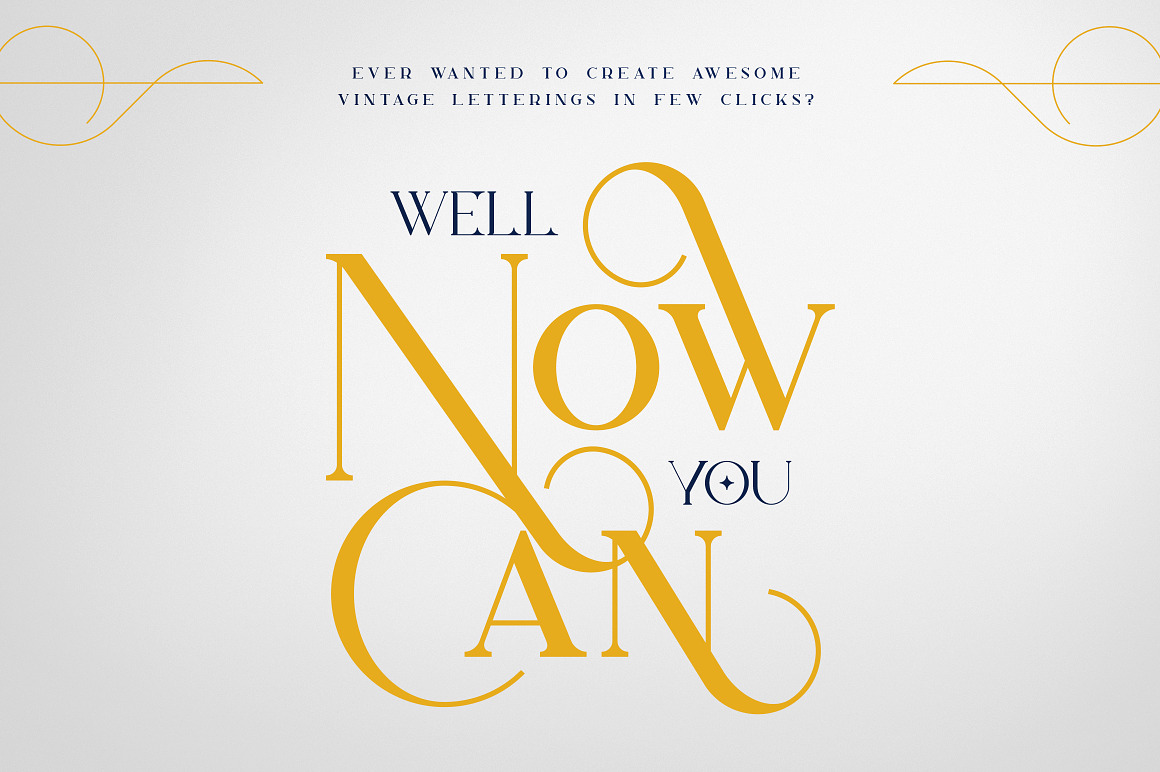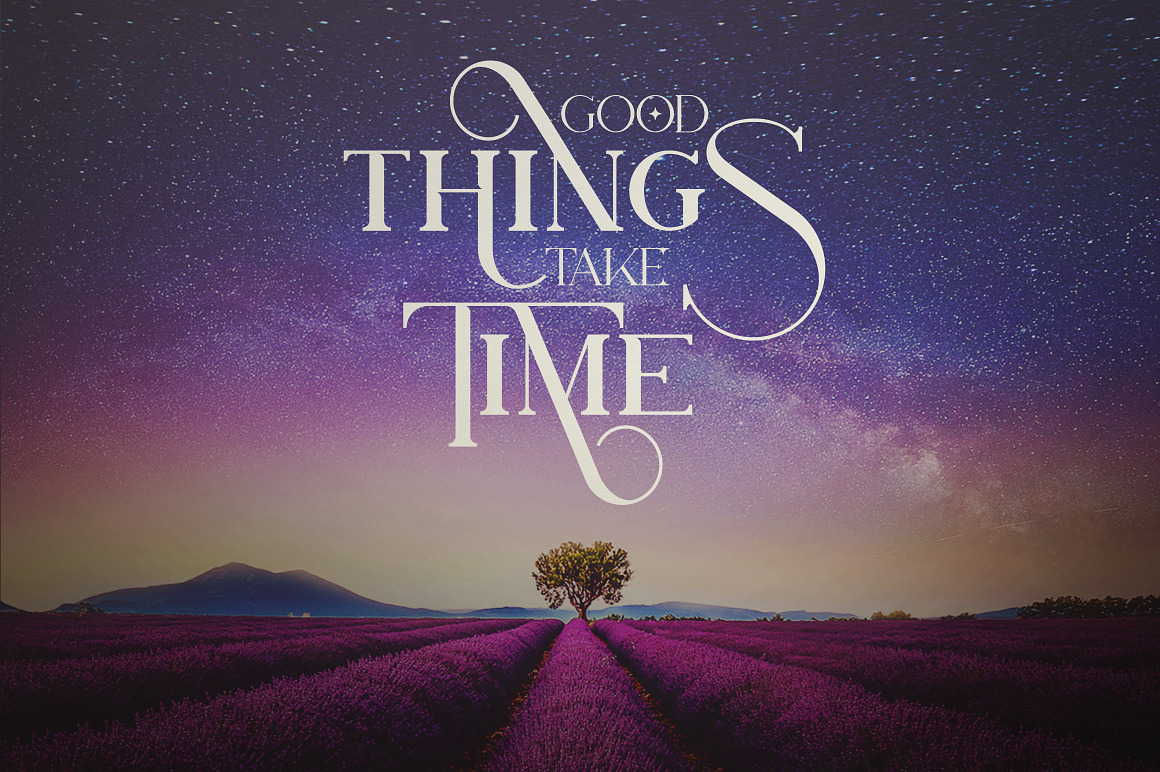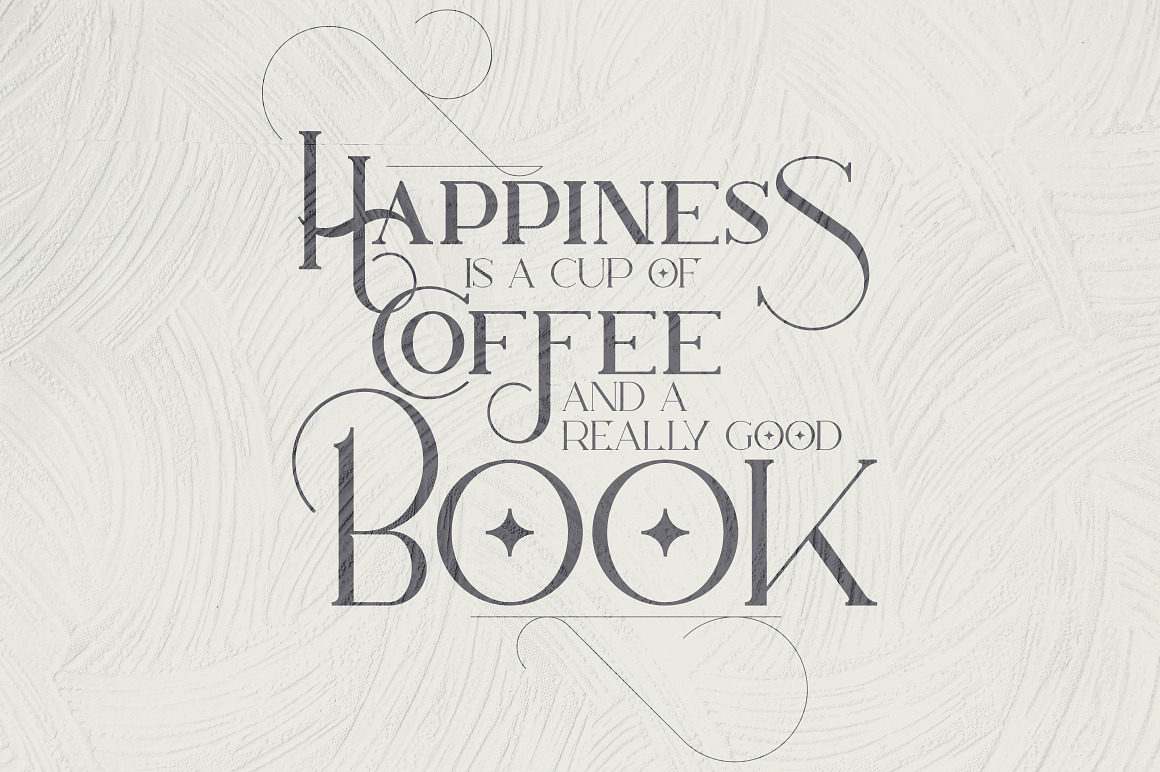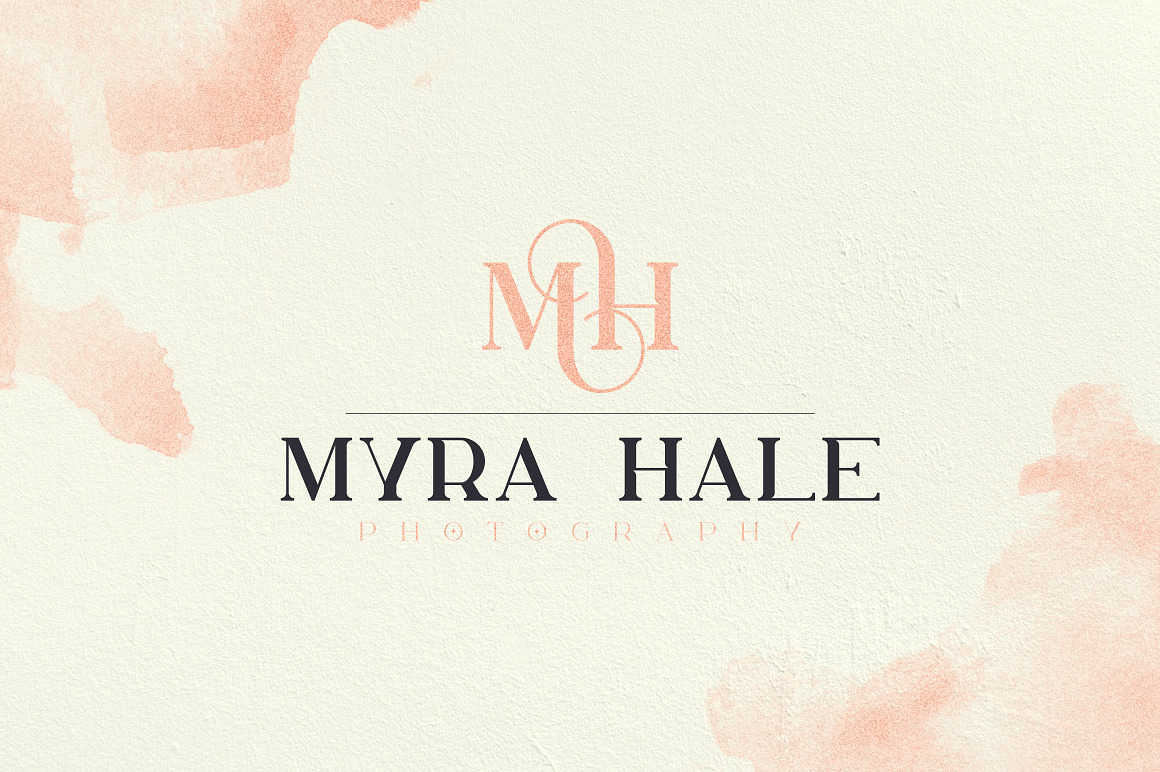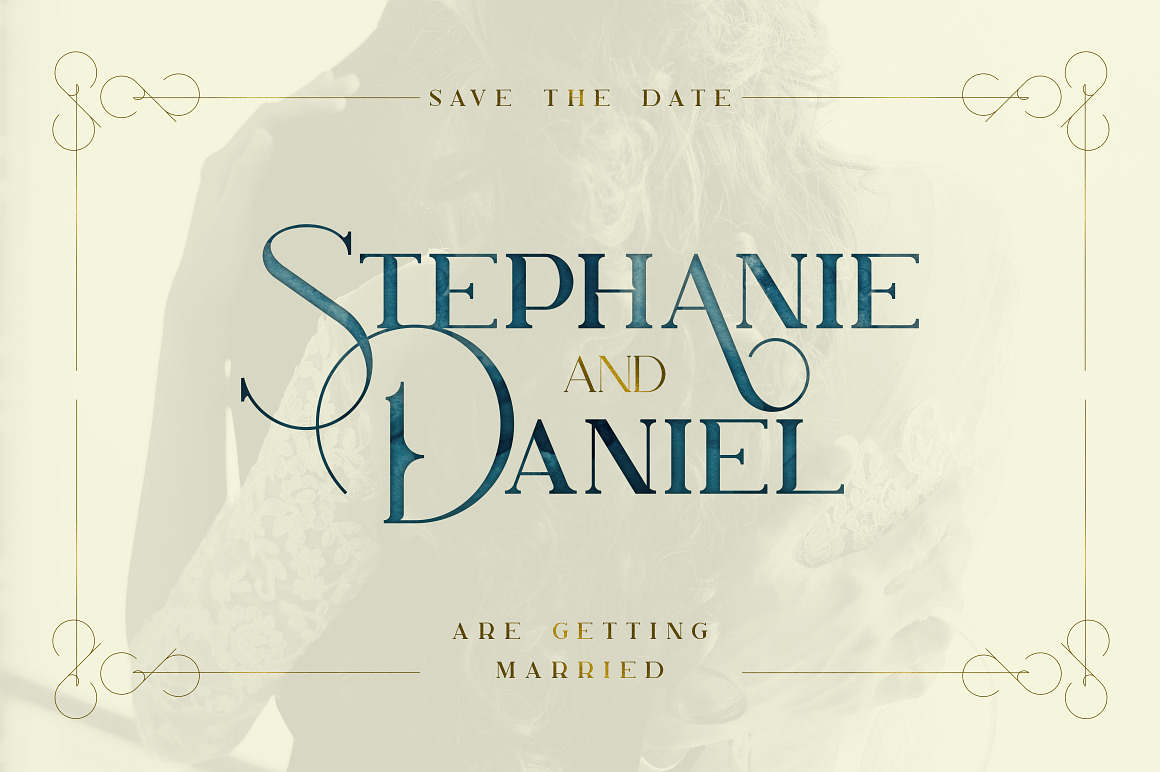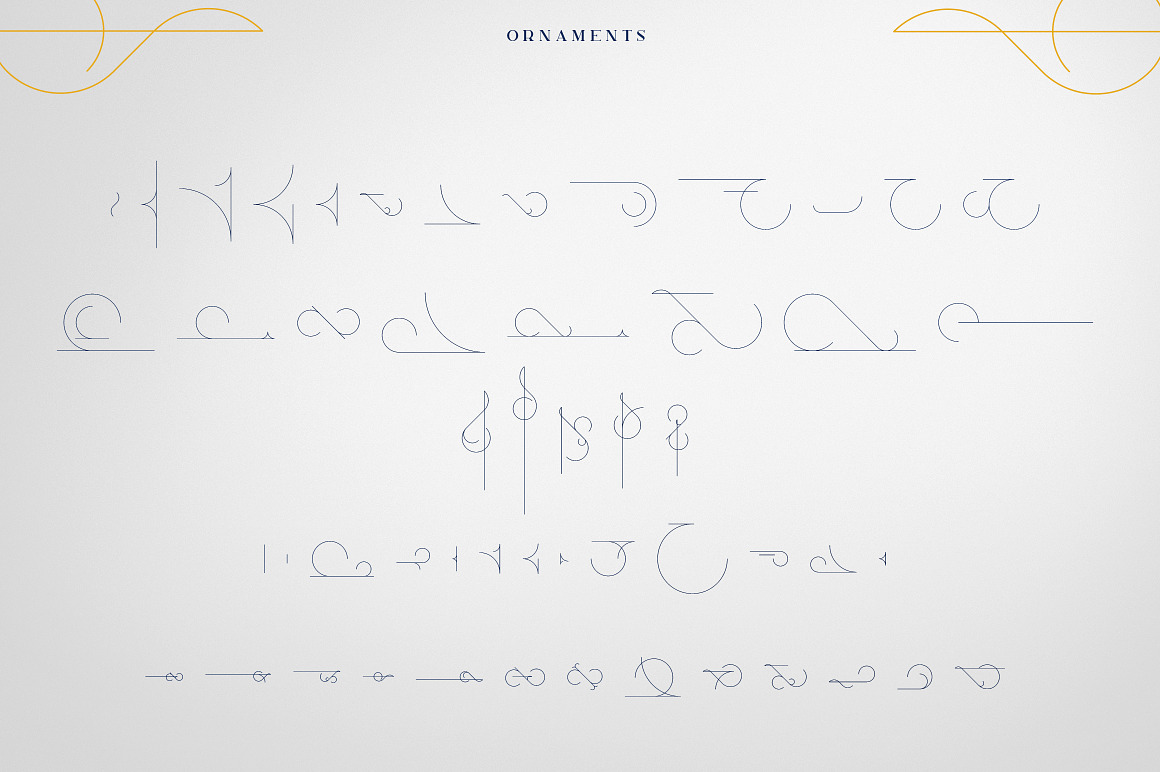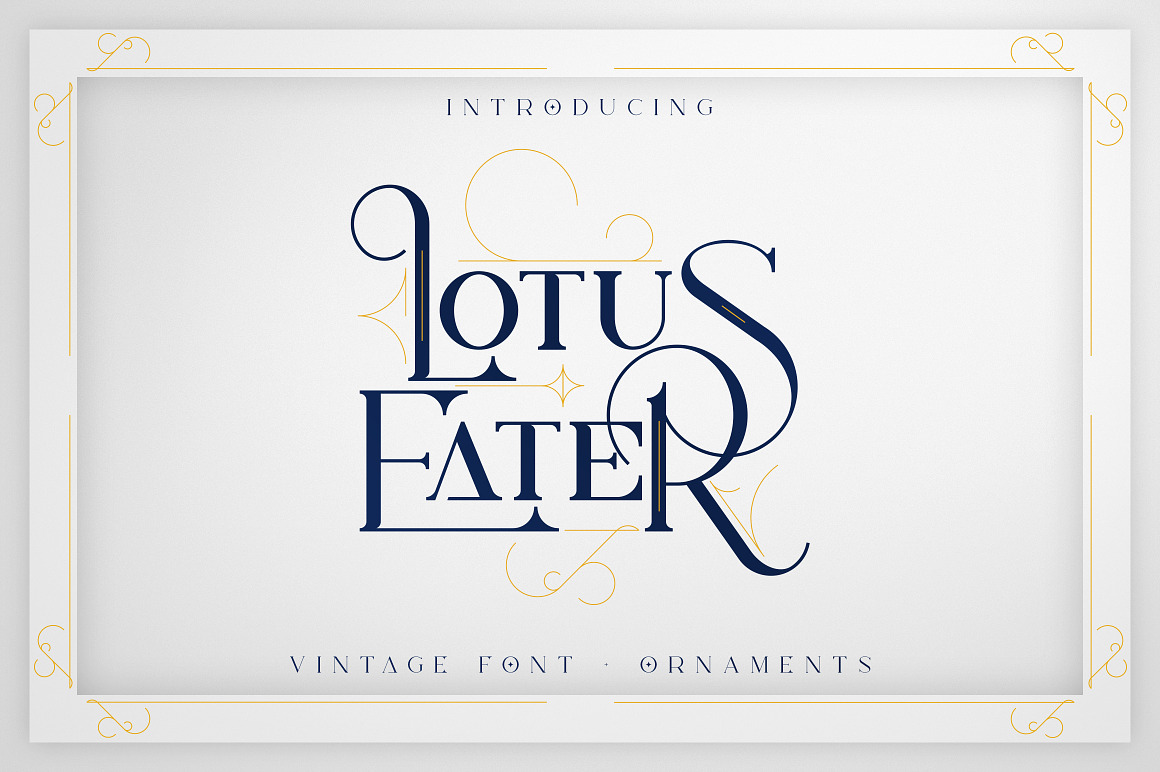
Lotus Eater - Vintage Font
Lotus Eater - Vintage Font is perfect for retro branding, vintage posters, artisan product packaging, café menus, and nostalgic social media graphics. Its classic design evokes a timeless charm that works beautifully across both print and digital media.
What makes Lotus Eater - Vintage Font exciting is its unique blend of vintage aesthetics with modern readability. The carefully crafted letterforms convey character and personality, making your projects feel authentic, stylish, and memorable.
The Lotus Eater - Vintage Font family includes Regular, Bold, Italic, and Decorative styles, giving designers plenty of flexibility to create layered typography and dynamic compositions. This variety ensures your design can capture attention while maintaining a cohesive look.